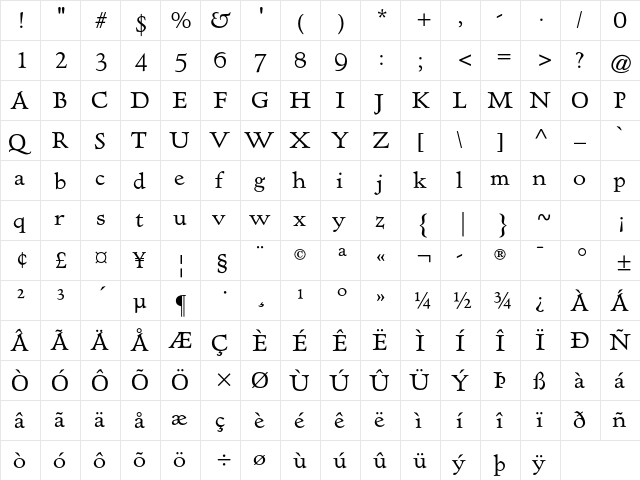
AT Hadriano Std Light
Design Context for AT Hadriano Std Typeface
AT Hadriano Std offers clean, dependable letterforms without strong stylistic allegiance, making it a practical choice for designers who need flexibility. The delicate stroke weight brings airiness and refinement to layouts.